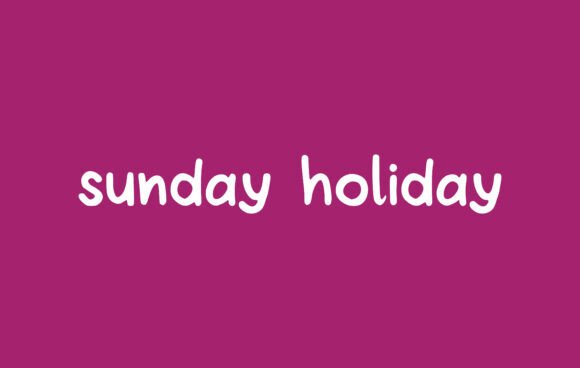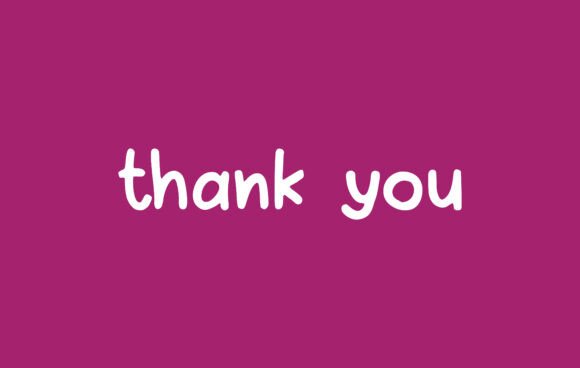
The Birdie Font: A Romantic Touch for Your Creative Projects
I’ll never forget the time I was working on a wedding invitation design for a client, and I was struggling to find the perfect font. The project required a romantic, whimsical touch, but everything I tried seemed either too generic or too over-the-top. That’s when I stumbled upon the Birdie font. It was love at first sight! 💕
With its authentic handwritten style and romantic undertones, Birdie quickly became my go-to font for a wide range of creative projects. In this article, I’ll share my experience with Birdie, its features, and how to make the most of it in your designs.
An Honest Review of Birdie Font
What I Love About Birdie Font
- ✨ Legibility: Birdie is incredibly easy to read, making it perfect for both title and body text.
- ✅ Romantic Touch: The font’s handwritten style adds a touch of elegance and sophistication to any design.
- 💫 Versatility: Birdie is suitable for a wide range of projects, from magazine headlines to social media graphics, branding, wedding invitations, and more.
While Birdie is an excellent font, there are a few things to keep in mind:
- ⚠️ Limited use of all-caps: While Birdie looks great in uppercase, it’s not the most visually appealing font when used exclusively in all-caps. Try mixing it with lowercase letters for a more balanced look.
- 🤔 Some characters may require manual kerning: Depending on the context, you might need to adjust the kerning between certain characters to achieve optimal spacing.
The Story Behind Birdie Font
According to its creators, Birdie font was designed to capture the essence of handwritten elegance. The goal was to craft a font that would add a touch of romance and whimsy to any design, making it perfect for creative projects and personal expression.
Q: Is Birdie font suitable for body text?
A: Absolutely! Birdie font is legible and can be used for both title and body text.
Q: Does Birdie font support OpenType features?
A: Yes, Birdie font supports OpenType features, including stylistic alternates and glyphs.